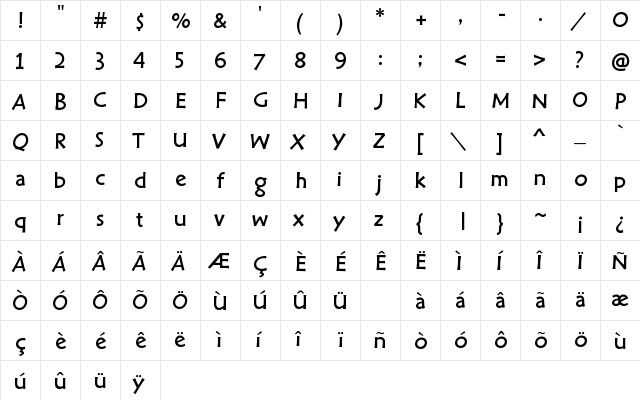
CalSansMediumHMK Regular
Design Context for CalSansMediumHMK Typeface
CalSansMediumHMK is a composed and adaptable typeface that performs quietly and consistently across a wide range of design contexts.